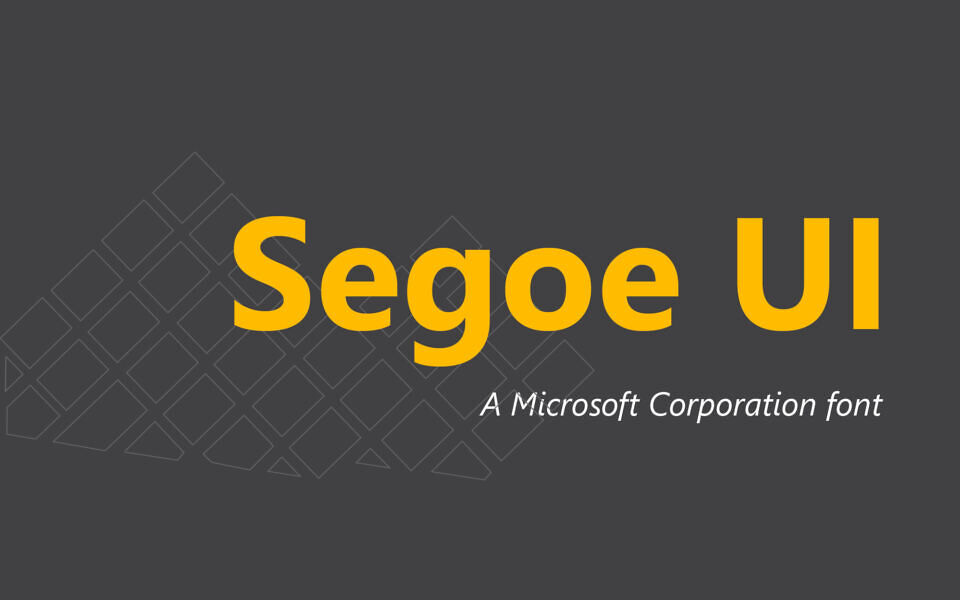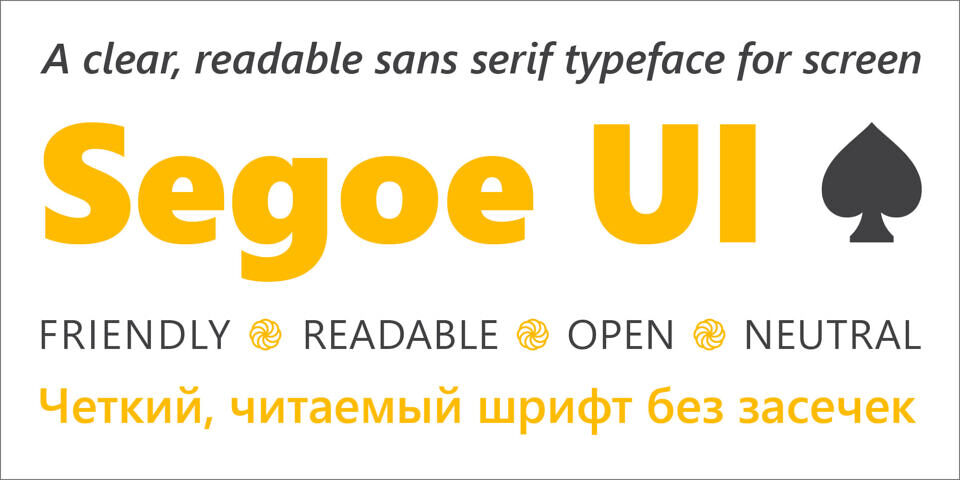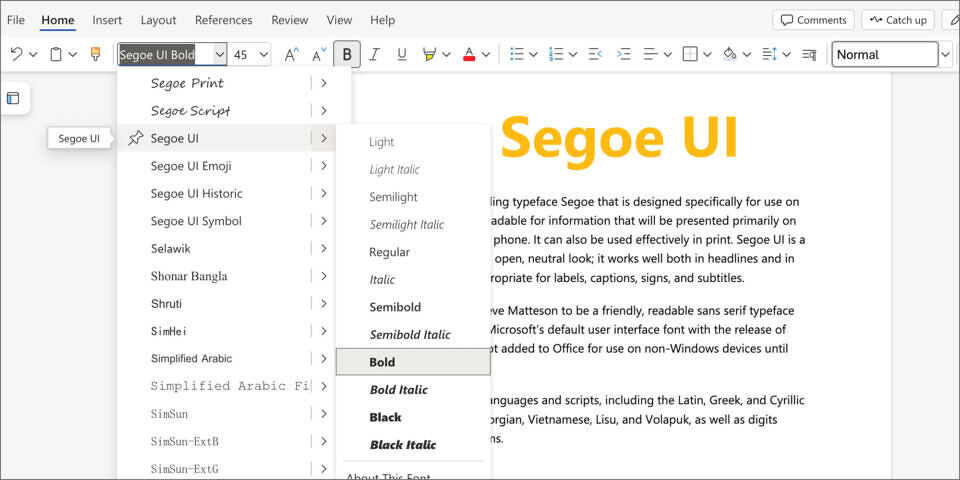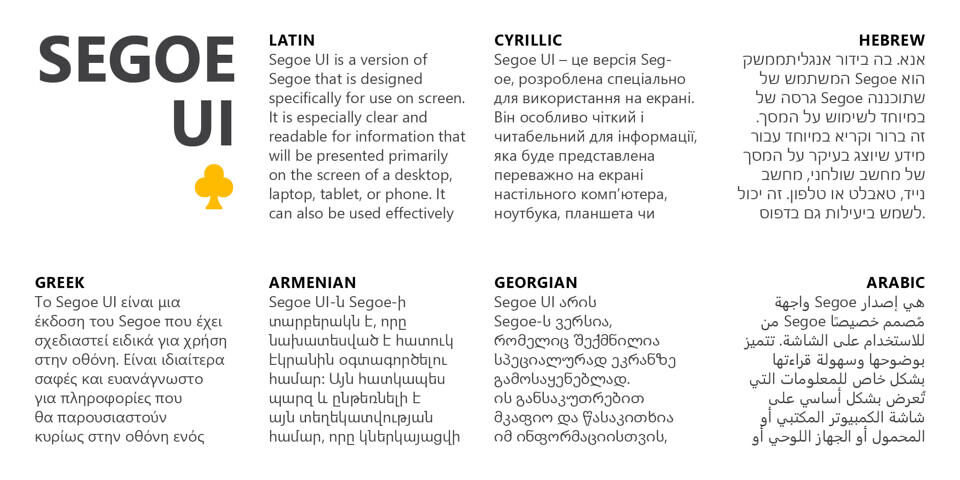
Segoe UI Font Family is a modern sans-serif typeface created by Steve Matteson and is best known for its use in Microsoft products. Introduced with Windows Vista, it was designed to improve readability and provide a better user experience across applications and system interfaces.
The typeface features a humanist design with softer, rounder letterforms compared to its predecessor, Tahoma, giving it a clean and approachable appearance. Today, Segoe UI is commonly used in branding, marketing materials, and digital interfaces, helping maintain a consistent visual identity across Microsoft platforms.
Segoe UI boasts a humanist design, giving it a warm and inviting look. It comes in several weights, including light, semibold, bold, and black. The font is optimized for LCD screens and supports many languages, covering Latin, Greek, and Cyrillic scripts. This versatility makes it suitable for use in both print and digital media.